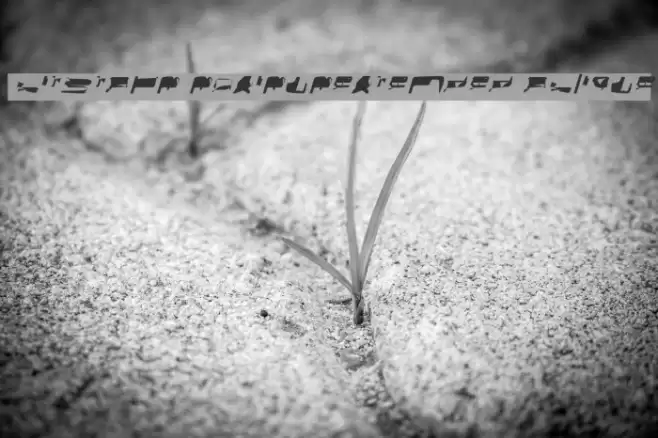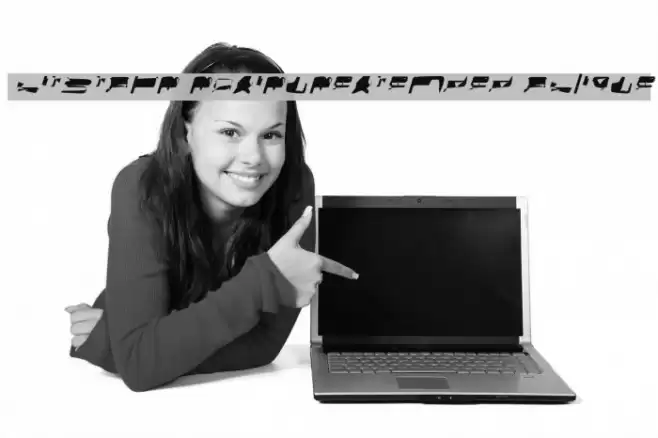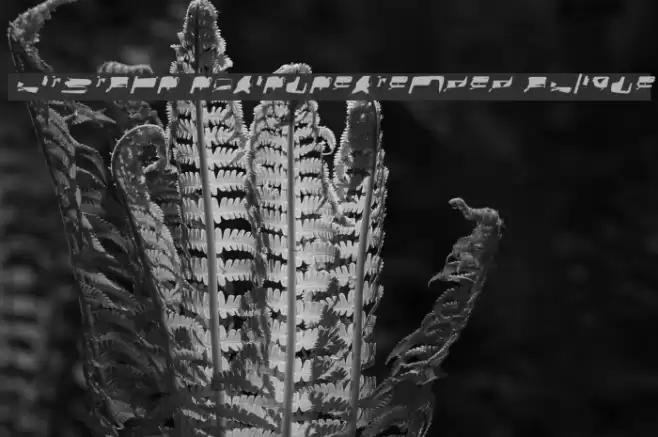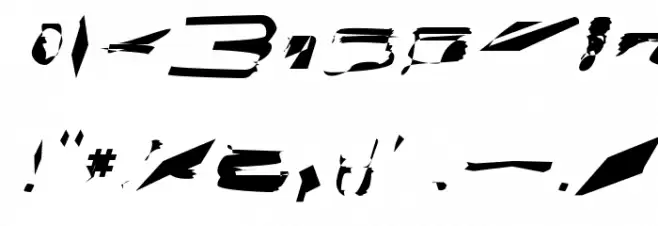
bitstorm maximumextended oblique Font
bitstorm maximumextended oblique Description
This font features a highly stylized and abstract design, characterized by sharp, angular shapes and a dynamic, fragmented appearance. The letters are heavily slanted, giving a sense of motion and energy. The strokes are bold and irregular, with varying thickness that creates a striking visual contrast. This font is designed to stand out and make a bold statement, suitable for attention-grabbing headlines or artistic projects. The unique design elements make it less suitable for body text but ideal for creative and expressive uses.
A bold, angular, and fragmented font with a dynamic, slanted style from Uncategorized fonts.
- Proposed Projects: Ideal for album covers, posters, video game graphics, and other creative projects where a bold, artistic statement is desired.
- Width: Expanded
- Character Spacing: Wide
- Overall Style: Modern, Artistic
- Use Case: Headlines, Logos, Artistic projects